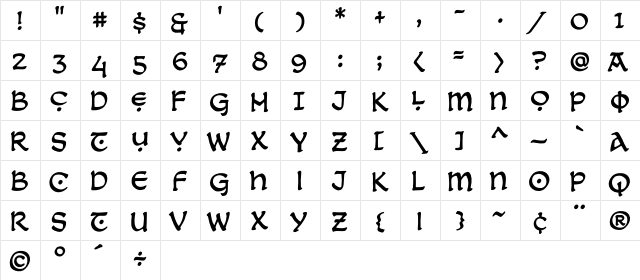
CCDreamlandDisplay Regular
Design Context for CCDreamlandDisplay Typeface
CCDreamlandDisplay brings ornamental detail and strong personality to headlines and identities, where visual impact matters more than quiet functionality.
Font Pairing: Pair with a clean neutral sans-serif for body copy to let CCDreamlandDisplay's character lead without overwhelming the composition.
Pro Tip: Use CCDreamlandDisplay exclusively at display sizes — it was designed to be seen, not read at length. Let a neutral companion handle body copy.